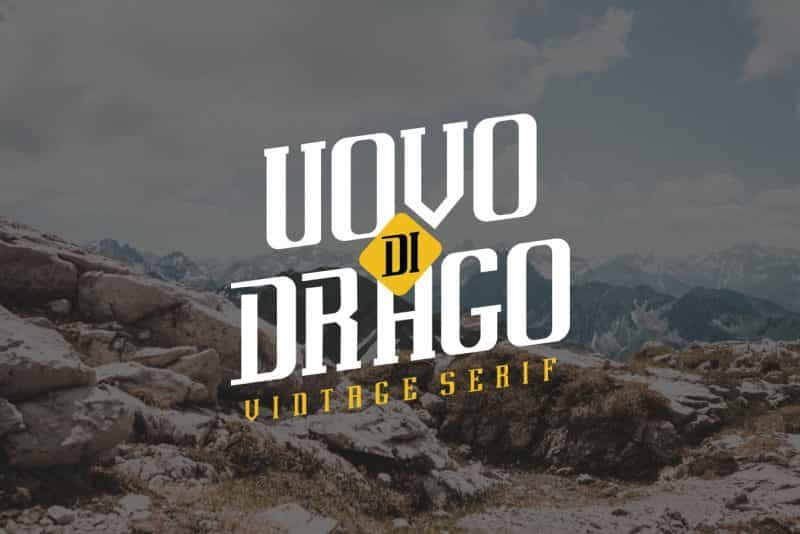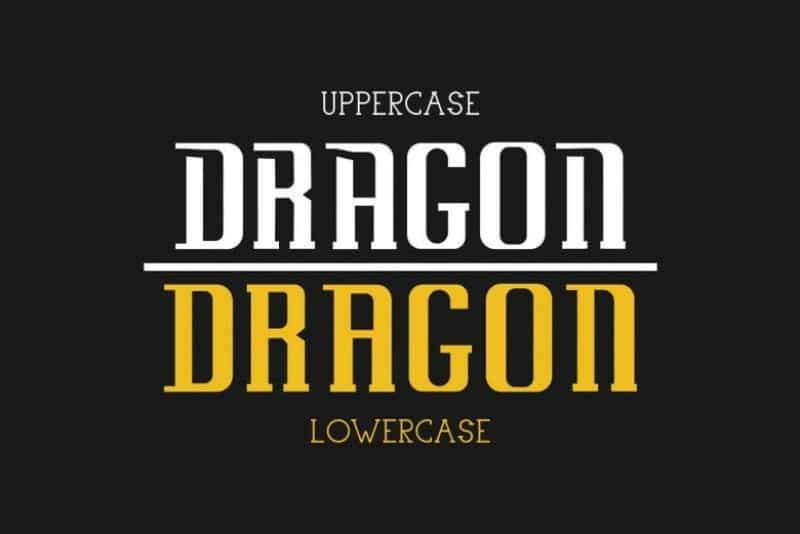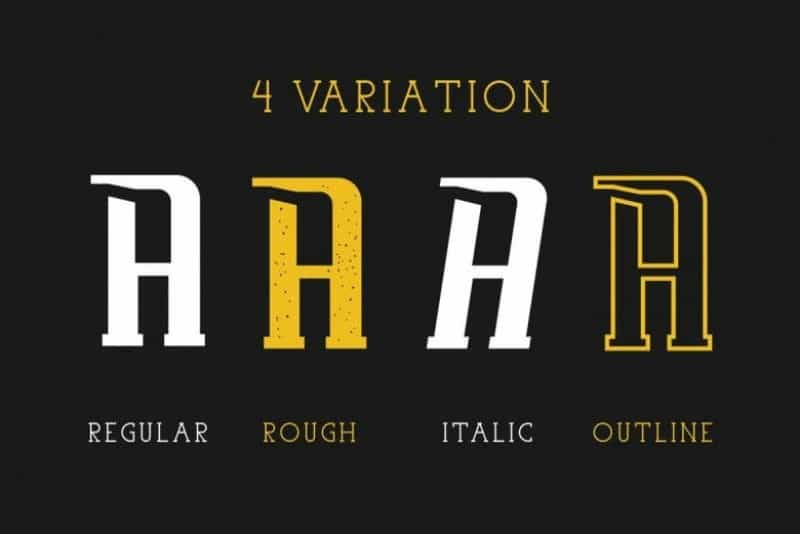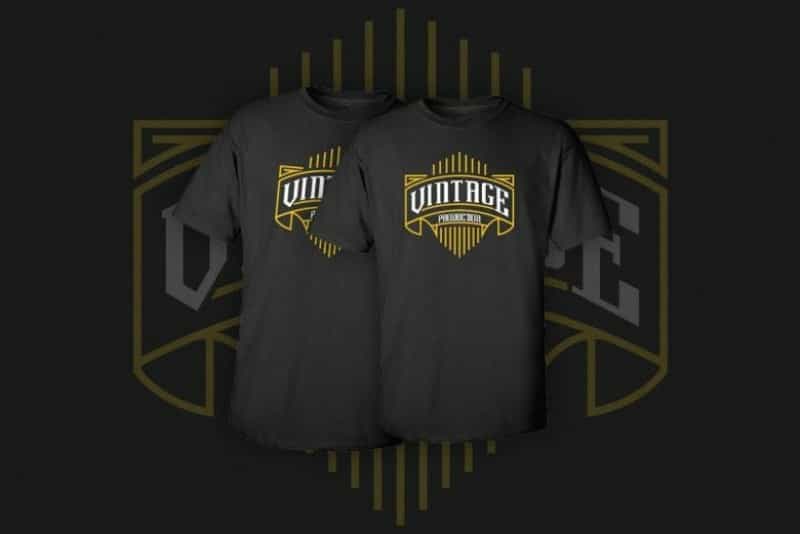
Uovo Di Drago is the Italian for dragon eggs. The modern font is the new one. It has 4 unique glyphs styles : Regular, Rough, Italics and outline. Great for merchandise, branding, logo, stationery, business card, signage, flyer, brochure etc. There are many industries that is suitable for this font : construction, real estate, services, cafe, coffee and music etc.